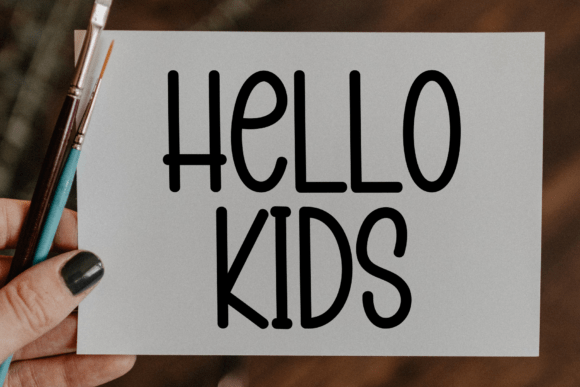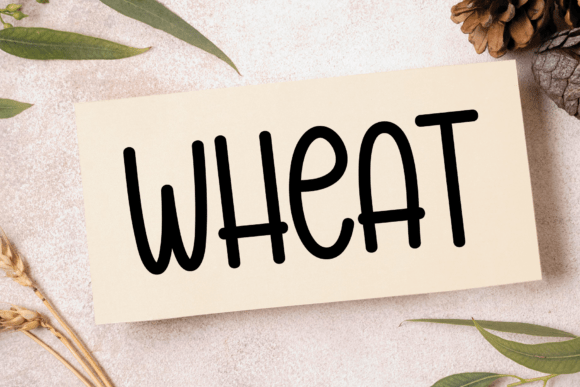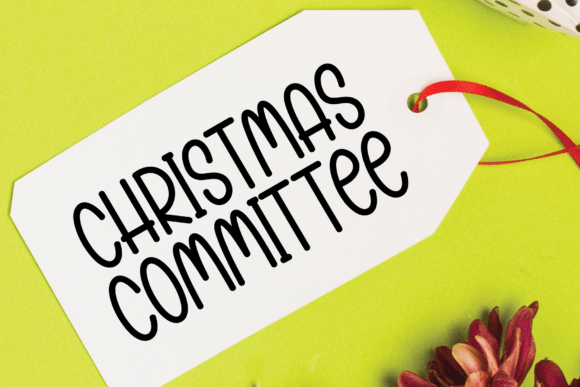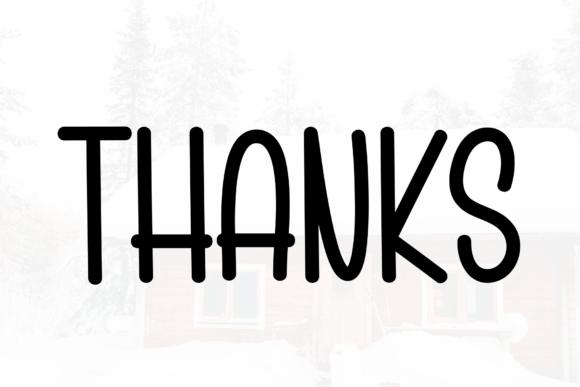
Introducing Armour Christmas Font: A Relaxed and Sporty Handwritten Style
Are you looking for a font that exudes a sense of luxury and elegance while still maintaining a casual and sporty vibe? Look no further than Armour Christmas Font. This beautiful handwritten font is designed to resemble marker-drawn text, giving it a unique and eye-catching appeal. In this article, we’ll dive into the features and benefits of Armour Christmas Font, and explore its various uses in design, crafting, and marketing.
What is Armour Christmas Font?
Armour Christmas Font is a carefully crafted handwritten font that boasts a relaxed and sporty feel. Its marker-drawn style gives it a distinct, informal look that’s perfect for designs that require a touch of personality. The font’s elegant yet casual appearance makes it an excellent choice for a wide range of applications, from branding and logos to wedding supplies, greeting cards, and marketing promotions.
Key Features of Armour Christmas Font
- Handwritten style: Armour Christmas Font features a beautiful, handwritten design that gives it a personal and unique touch.
- Marker-drawn appearance: The font’s marker-drawn style gives it a relaxed and sporty feel that’s perfect for casual designs.
- Luxurious and elegant: Despite its casual appearance, Armour Christmas Font exudes a sense of luxury and elegance, making it suitable for high-end designs.
- Versatile: This font is perfect for a wide range of applications, including branding, logos, wedding supplies, greeting cards, fashion, lookbooks, and marketing promotions.
Uses of Armour Christmas Font
Armour Christmas Font is an incredibly versatile font that can be used in various design applications. Here are some of the ways you can use this beautiful font:
- Branding and logos: Create a unique and memorable brand identity with Armour Christmas Font. Its elegant yet casual appearance makes it perfect for logos, business cards, and letterheads.
- Wedding supplies: Add a touch of elegance and sophistication to your wedding designs, including invitations, programs, and place cards.
- Greeting cards: Create beautiful and personalized greeting cards for special occasions, such as Christmas, birthdays, and anniversaries.
- Fashion and lookbooks: Use Armour Christmas Font to add a touch of luxury and elegance to your fashion designs, lookbooks, and catalogs.
- Marketing promotions: Create eye-catching marketing materials, including brochures, flyers, and posters, with Armour Christmas Font.
Benefits of Using Armour Christmas Font
Using Armour Christmas Font in your designs offers several benefits, including:
- Unique and eye-catching design: Armour Christmas Font’s marker-drawn style gives it a distinct and eye-catching appeal that sets it apart from other fonts.
- Flexibility: This font is suitable for a wide range of design applications, making it a great addition to your font library.
- Elegant yet casual: Armour Christmas Font’s luxurious and elegant appearance makes it perfect for high-end designs, while its casual vibe ensures it remains approachable and relatable.
Tips for Using Armour Christmas Font
To get the most out of Armour Christmas Font, here are some tips to keep in mind:
- Pair it with complementary fonts: Combine Armour Christmas Font with complementary fonts to create a unique and visually appealing design.
- Experiment with colors and textures: Add depth and interest to your design by experimenting with different colors and textures.
- Use it consistently: Use Armour Christmas Font consistently across your designs to create a cohesive and recognizable brand identity.
Armour Christmas Font is a beautiful and versatile handwritten font that offers a unique and eye-catching design solution for designers and crafters. Its relaxed and sporty feel, combined with its luxurious and elegant appearance, makes it perfect for a wide range of applications. Whether you’re creating branding materials, wedding supplies, greeting cards, or marketing promotions, Armour Christmas Font is an excellent choice. With its flexibility, unique design, and elegant yet casual appearance, this font is sure to become a staple in your design library.